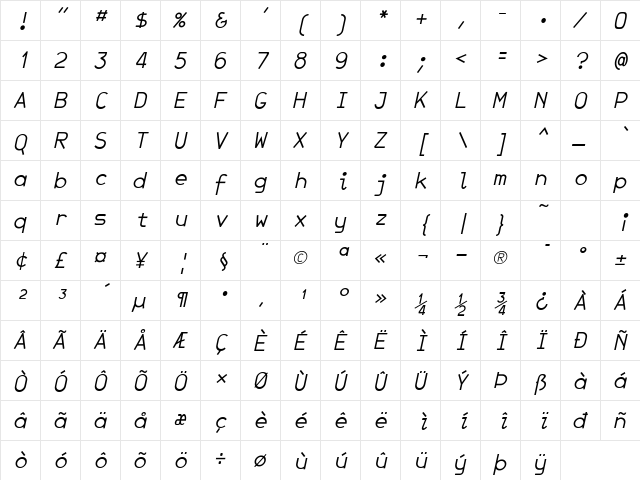
JetJaneMono Italic
Design Context for JetJaneMono Typeface
JetJaneMono brings the precise, column-aligned rhythm of monospaced typography to designs that value technical clarity and systematic order. Its italic angle brings a sense of urgency and motion to the letterforms.
Pro Tip: Pair JetJaneMono with a proportional sans for UI contexts where code-style labels and regular body copy need to coexist.